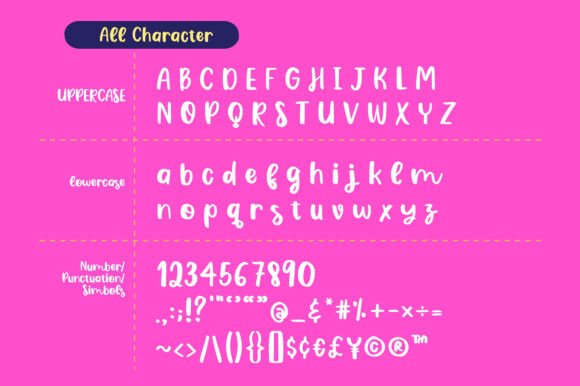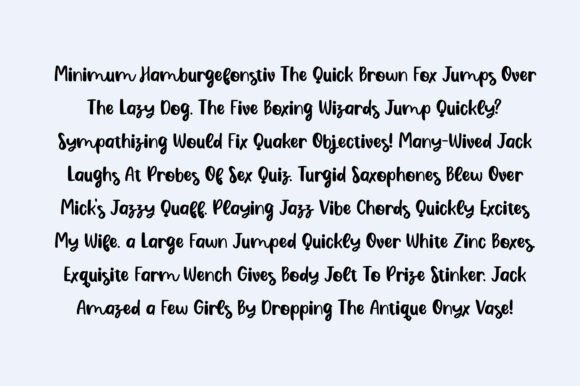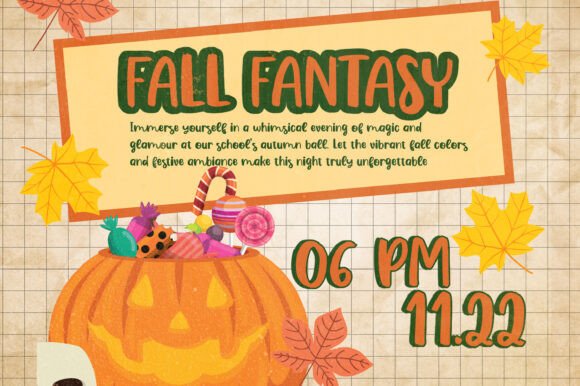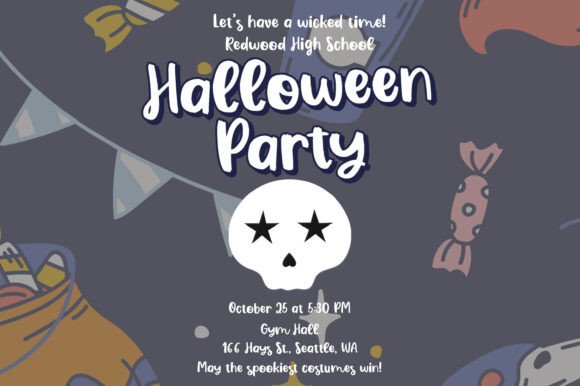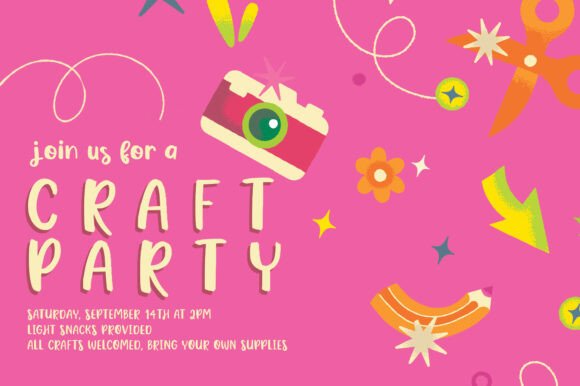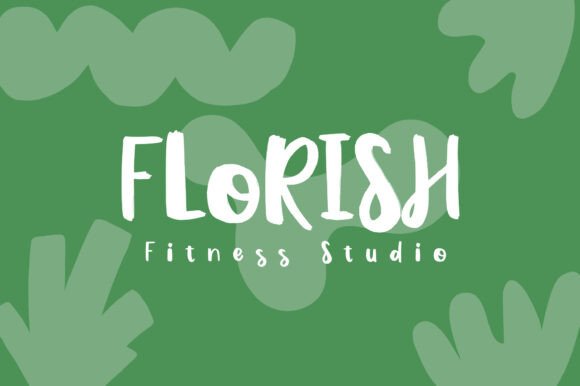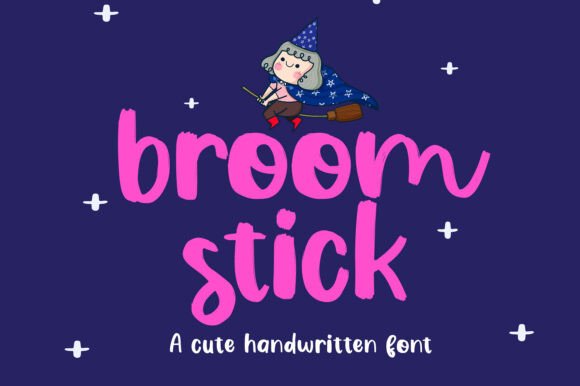
Broomstick Font: Add a Touch of Whimsy to Your Designs
Broomstick is an enchanting handwritten font that has captured the hearts of designers and crafters alike. This versatile script font has a wide spectrum of applications, ranging from greeting cards to headlines, and is guaranteed to add a romantic feel to your next project. In this article, we’ll dive into the world of Broomstick Font, exploring its features, uses, and benefits, as well as provide tips on how to make the most of this charming font.
The Charm of Broomstick Font
Broomstick Font is a beautiful, handwritten script font that exudes a sense of whimsy and romance. Its flowing lines and delicate curves make it perfect for adding a touch of elegance to any design. The font’s unique charm lies in its ability to evoke a sense of nostalgia and playfulness, making it ideal for projects that require a personal touch.
Features of Broomstick Font
- Handwritten script font: Broomstick Font is a carefully crafted handwritten script font that mimics the look and feel of traditional penmanship.
- Versatile: This font is suitable for a wide range of applications, from greeting cards and invitations to headlines and titles.
- Romantic feel: Broomstick Font is guaranteed to add a romantic touch to your designs, making it perfect for wedding-related projects, Valentine’s Day cards, and other special occasions.
- Easy to read: Despite its ornate appearance, Broomstick Font is surprisingly easy to read, making it suitable for both digital and print applications.
Uses of Broomstick Font
Broomstick Font is an incredibly versatile font that can be used in a variety of contexts. Here are some ideas to get you started:
- Greeting cards: Add a personal touch to your greeting cards with Broomstick Font, perfect for special occasions like birthdays, weddings, and holidays.
- Invitations: Create beautiful, eye-catching invitations for weddings, baby showers, and other events with Broomstick Font.
- Headlines and titles: Use Broomstick Font to add a touch of elegance to your headlines and titles, perfect for blog posts, articles, and social media graphics.
- Branding and packaging: Broomstick Font can be used to create unique and memorable branding and packaging designs that stand out from the crowd.
Tips for Using Broomstick Font
To make the most of Broomstick Font, here are some tips to keep in mind:
- Pair with contrasting fonts: Pair Broomstick Font with a contrasting font to create visual interest and add depth to your design.
- Experiment with colors: Try out different colors and color combinations to find the perfect match for your design.
- Use it sparingly: Use Broomstick Font sparingly to avoid overwhelming your design. It’s perfect for headlines, titles, and accents.
- Have fun: Most importantly, have fun with Broomstick Font! Experiment with different styles and techniques to find what works best for you.
Broomstick Font is a charming and versatile handwritten script font that’s perfect for adding a touch of romance and whimsy to your designs. With its wide range of applications and ease of use, it’s no wonder that Broomstick Font has become a favorite among designers and crafters. Whether you’re creating greeting cards, invitations, headlines, or branding and packaging designs, Broomstick Font is sure to bring a smile to your face and a touch of magic to your projects.